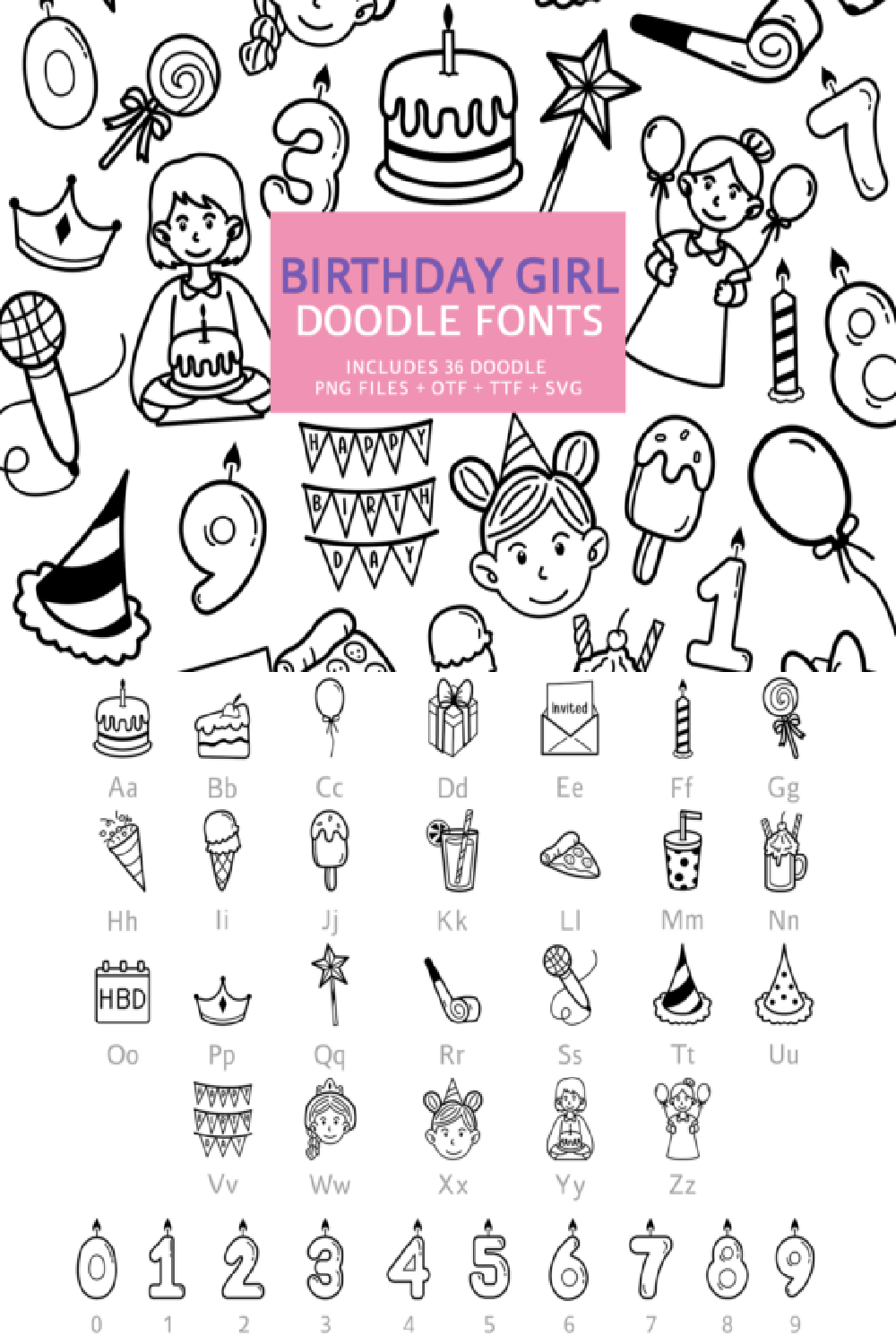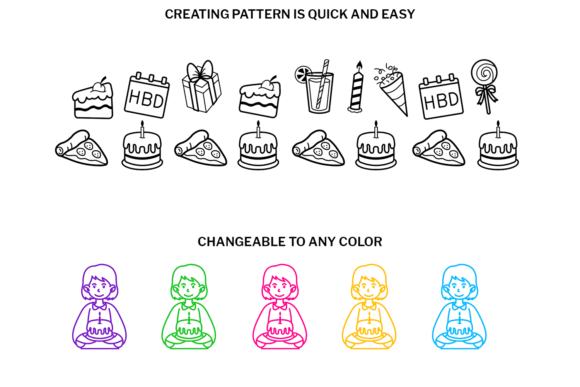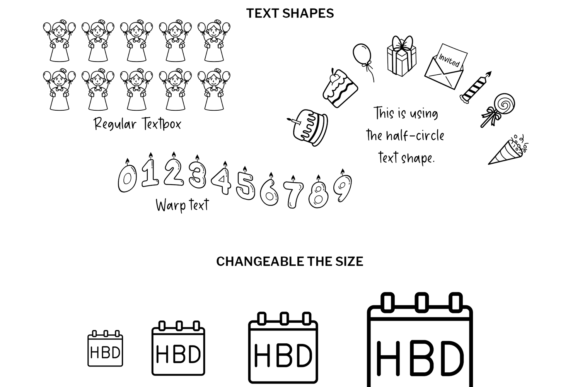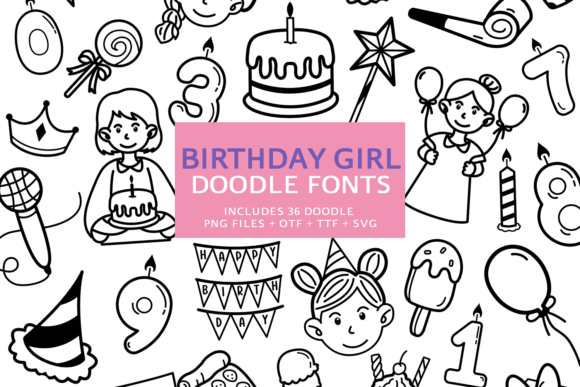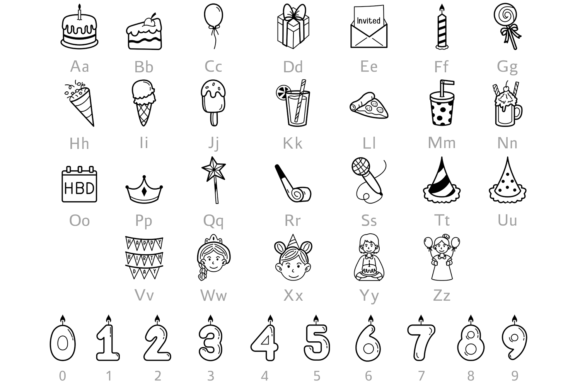
Birthday Girl Doodle Font
About the Birthday Girl Doodle Font
Add a touch of class to your work with the Birthday Girl Doodle Font, a truly exceptional typeface. Birthday Girl Doodle is a fun and cute dingbats font. Its versatility makes it great for a Birthday party, planners, and diaries, Great for crafters and graphic artists alike. Compatible with tools such as Photoshop or Illustrator. or anything your heart desires!
Birthday Girl Doodle Font Usage Examples